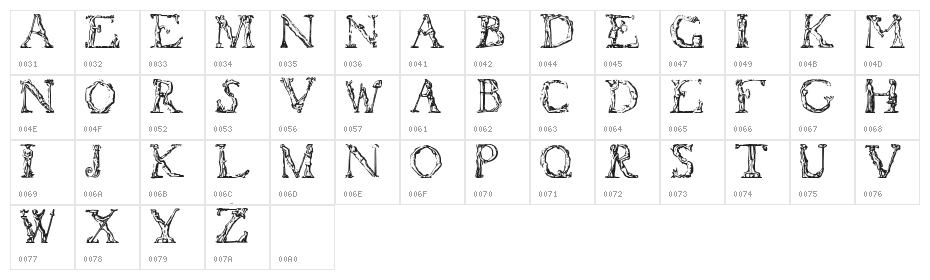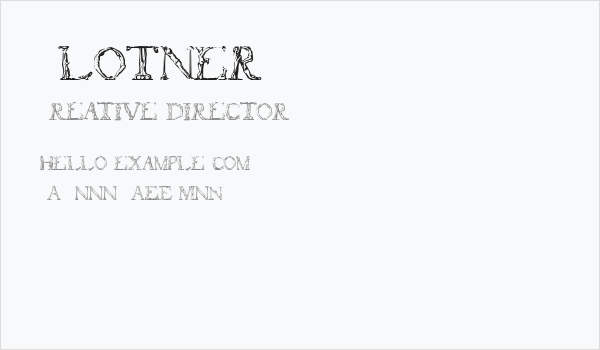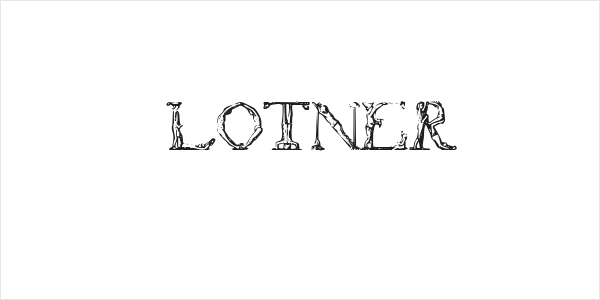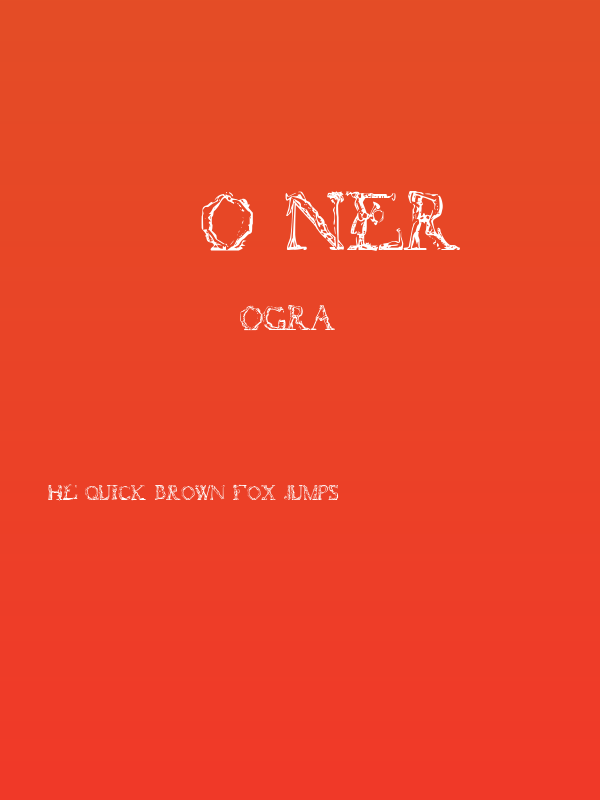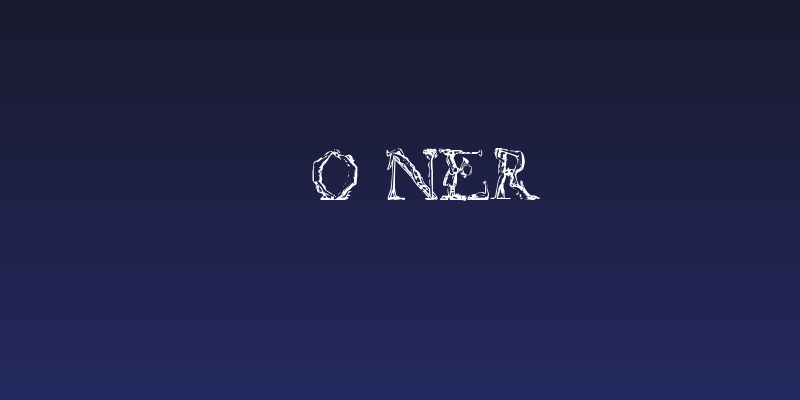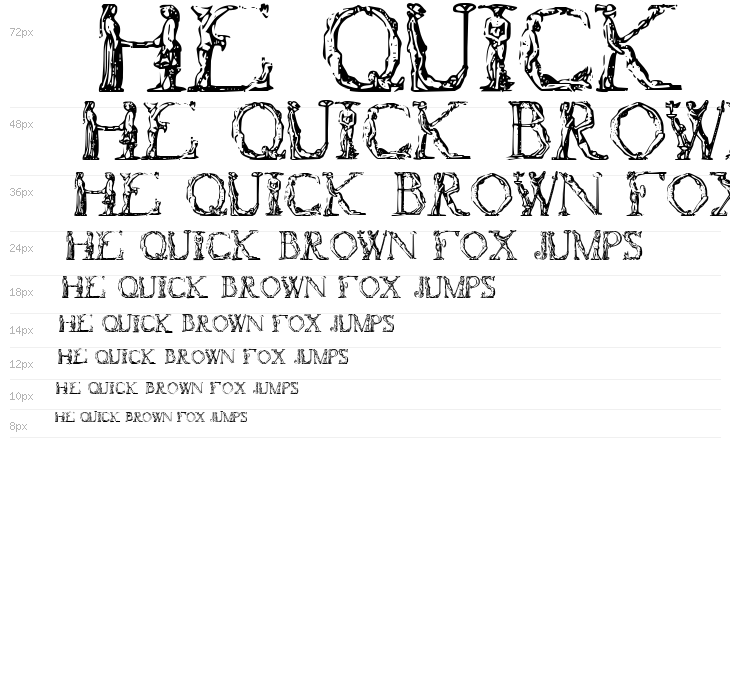
Flotner Font
Flotner Description
This font features a highly decorative and intricate design, reminiscent of historical or vintage styles. Each character is adorned with elaborate flourishes and embellishments, giving it a unique and artistic appearance. The strokes are uneven, with varying thicknesses, creating a textured and ornate look. This font is ideal for projects that require a touch of elegance and sophistication, such as invitations, posters, or branding materials that aim to evoke a sense of history or tradition.
| Proposed Projects | Ideal for wedding invitations, historical-themed posters, vintage branding, and artistic projects requiring a touch of elegance. |